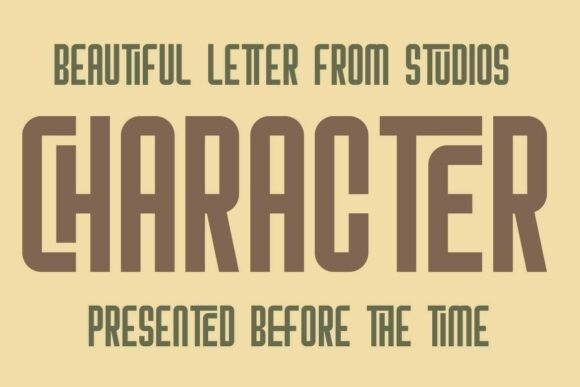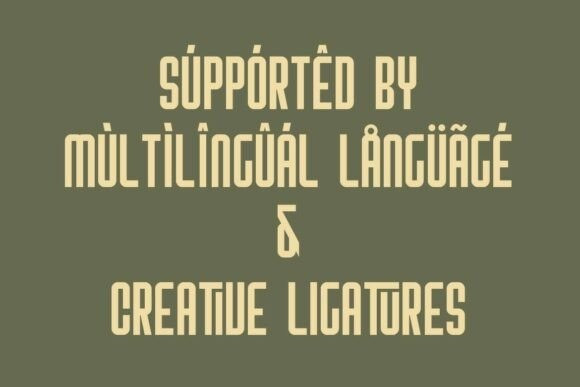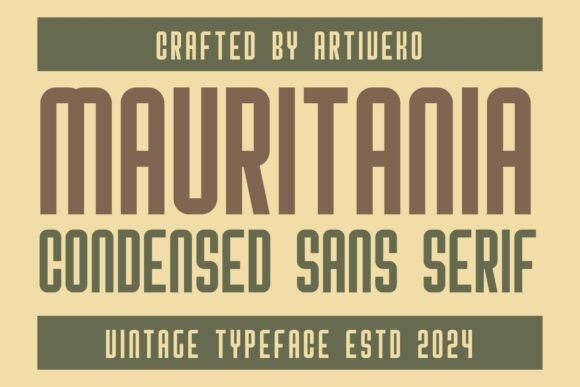
Mauritania Font
Mauritania Font is a modern sans serif font that merges clarity with character. Inspired by timeless design principles and global elegance, Mauritania offers a clean, open structure with smooth curves and balanced geometry. Its versatile style makes it ideal for branding, editorial layouts, travel publications, lifestyle content, and minimalist packaging.